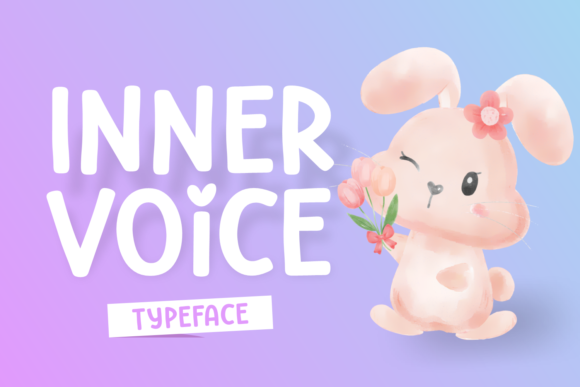
Inner Voice Font
Journey into the realm of typography and discover Inner Voice, the charming sans serif font that will captivate your senses and bring your creative visions to life. Inner Voice is not just a font; it's an expression of your individuality, a reflection of your unique style. With its playful and inviting curves, Inner Voice dances across your screen, captivating the eye with its effortless elegance.
Dive into the world of boundless creativity as you explore the endless possibilities that Inner Voice presents. Let your imagination soar as you craft captivating frames, breathe life into vibrant wall art, design clothing that speaks to the soul, and create packaging designs that leave a lasting impression. Transform quotes into works of art, elevate your branding with a touch of whimsy, and design logos that stand out from the crowd.
Inner Voice is more than just a font; it's a versatile chameleon that effortlessly adapts to your every creative need. Its inherent flexibility allows it to seamlessly blend into any design aesthetic, seamlessly transitioning from playful and lighthearted to sophisticated and refined. Unleash your creativity and let Inner Voice guide you on an artistic odyssey that knows no bounds.
With Inner Voice at your fingertips, you'll embark on a journey of self-expression and creative fulfillment. Your imagination will ignite as you witness your ideas come to life, infused with the magic of Inner Voice's enchanting touch. Your designs will captivate and inspire, leaving an indelible mark on the hearts and minds of those who behold them.
Embrace the allure of Inner Voice and unlock the limitless possibilities that await you. Let your creativity flourish, let your designs shine, and let Inner Voice be the beacon that illuminates your path to typographic greatness. Seize this opportunity to make a statement, to leave your artistic footprint on the world.